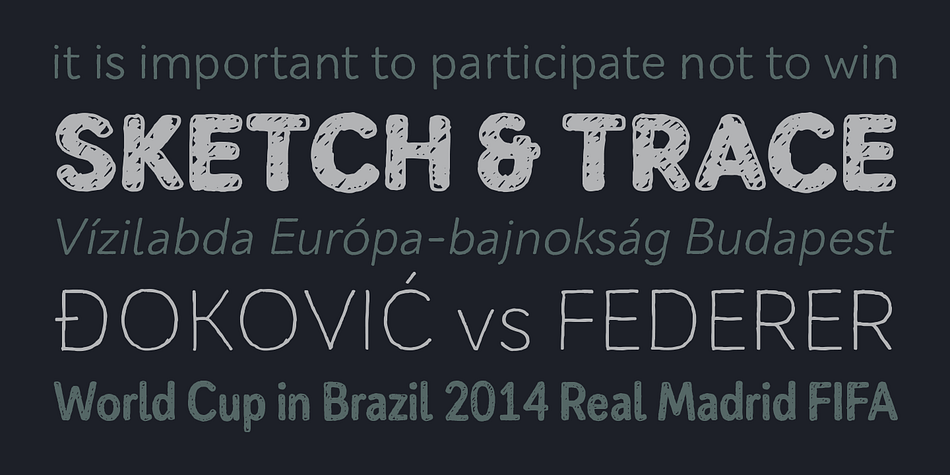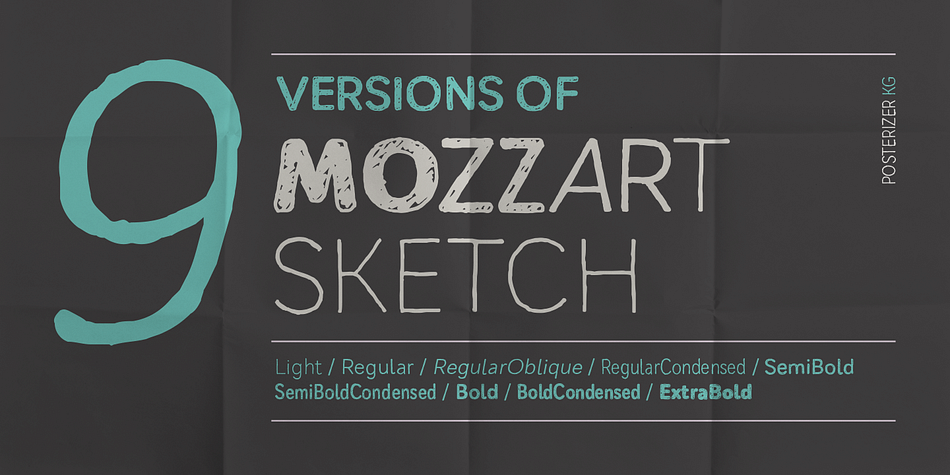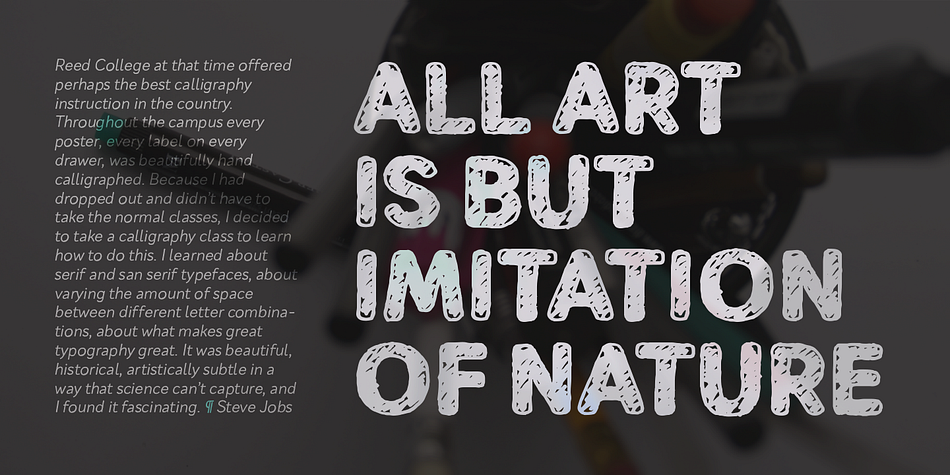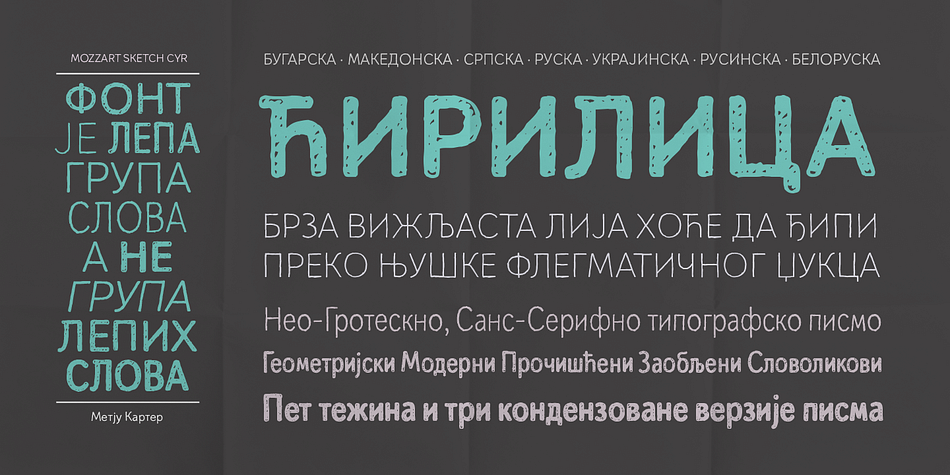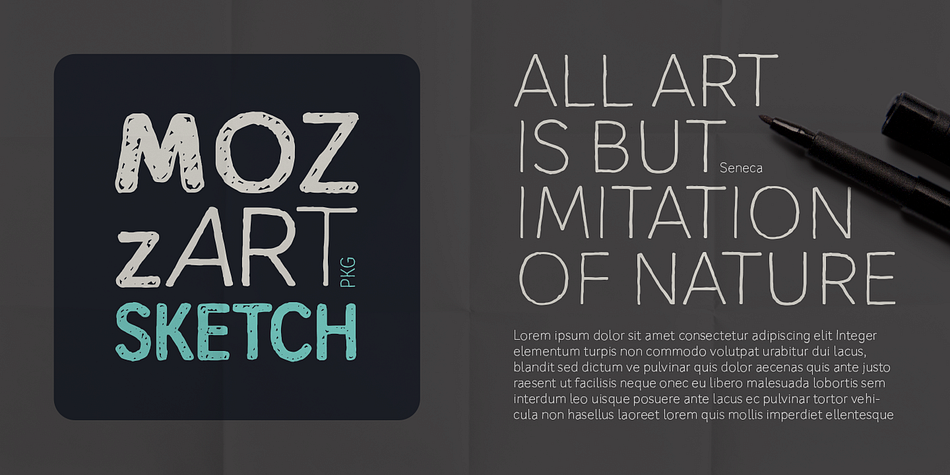
Mozzart Sketch is a hand drawn font family. This typeface has nine styles and was published by Posterizer KG.
Mozzart Sketch is decorative version of Mozzart Sans, slightly rounded, Neo-Grotesque corporate font, created for MOZZART D.O.O. company from Belgrade, Serbia. Mozzart Sketch, is decorative hand-sketched font for headlines and short texts, and also very readable in small weights. All glyphs were carefully hand drawn, with marker as a tool, then traced and digitized. The family contains: 5 Weights, 3 Condensed and 1 Oblique versions of font, complement each other perfectly.
Contains completely MacOS Roman and MacOS Cyrillic code pages, tabular figures, small caps… perfect for
profesional designers and very useful for artistic things, catalogues, music… and many other sensual and beautiful things. Mozzart Sketch is for everybody, just like Mozart’s music! Enjoy!